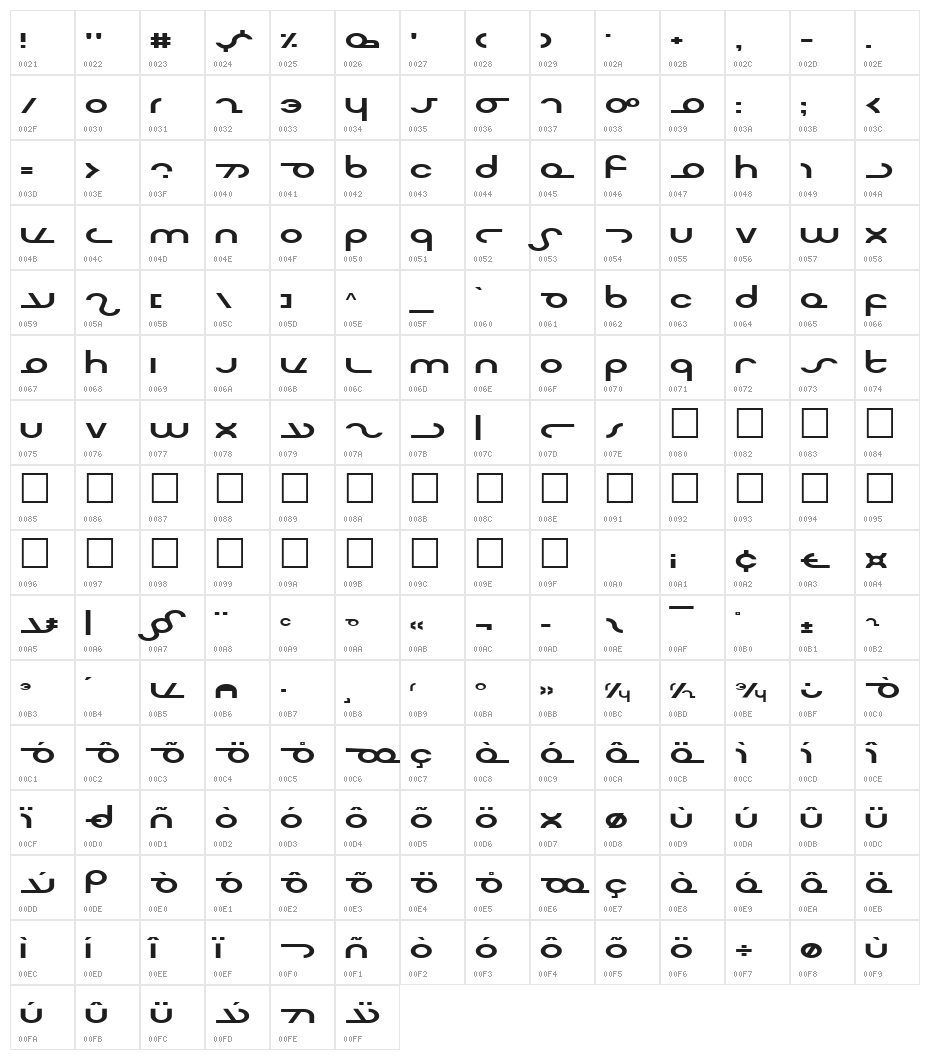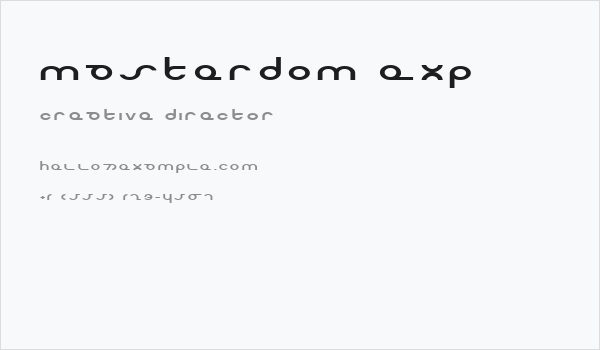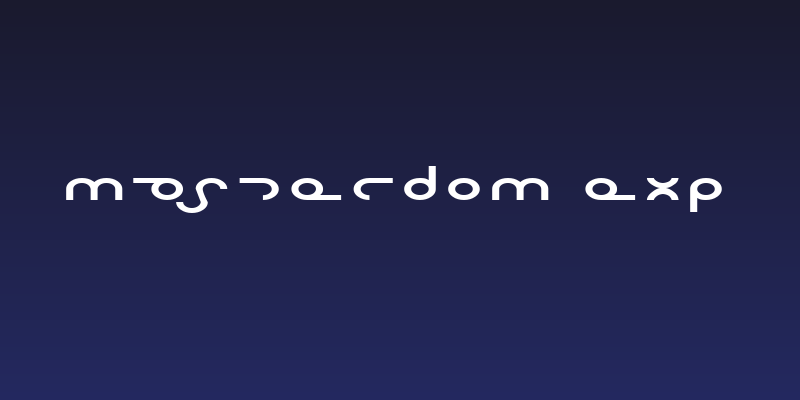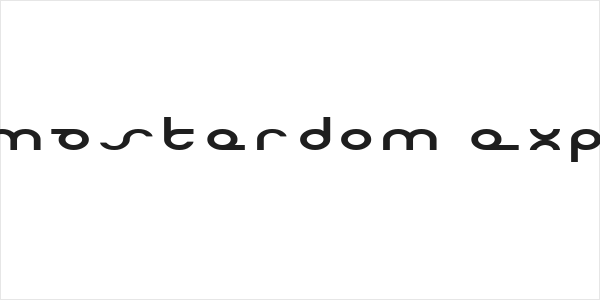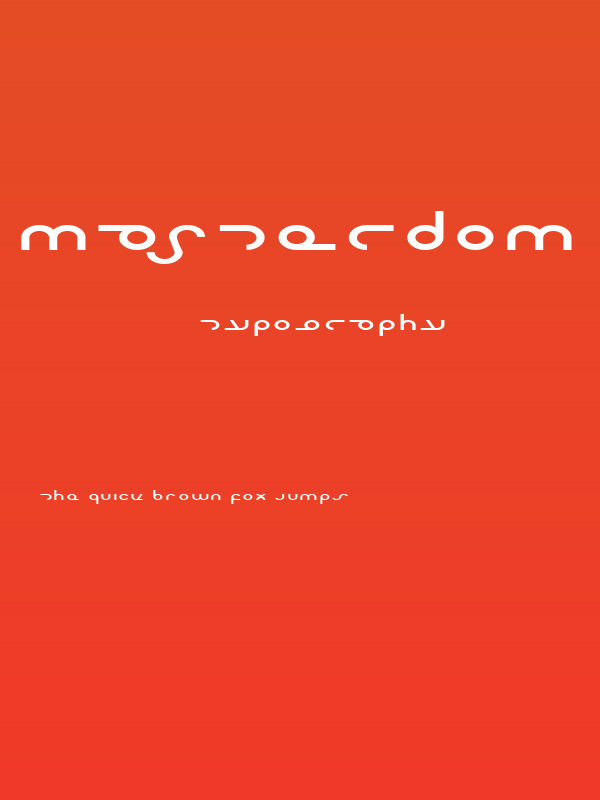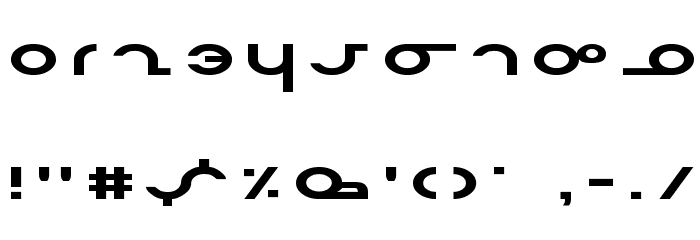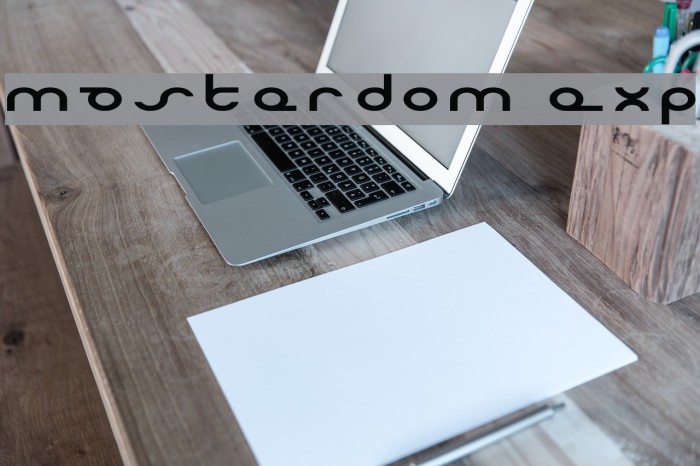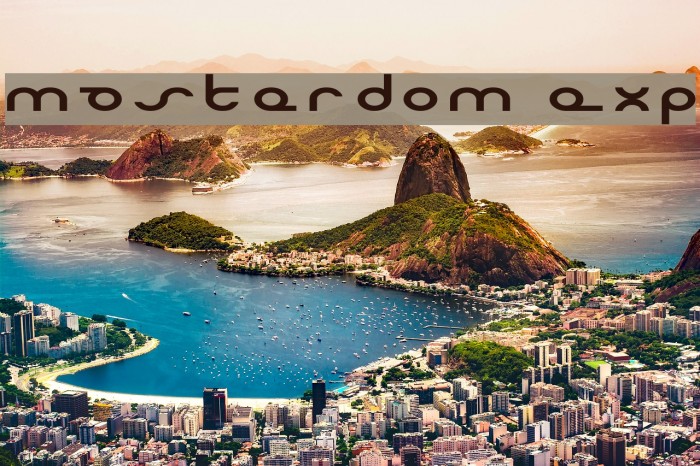
Masterdom Exp Font
Masterdom Exp Description
This font features a unique and futuristic design with a distinct geometric style. The characters are crafted with a combination of straight lines and smooth curves, giving it a modern and innovative appearance. The uppercase and lowercase letters maintain a consistent style, with some characters exhibiting unconventional shapes that add to its distinctiveness. The numerals and special characters follow the same design principles, ensuring uniformity across the font. Its bold strokes and minimalistic approach make it suitable for projects that require a contemporary and eye-catching typeface.
| Use Case | Logos, Headlines, Posters |
| Proposed Projects | Ideal for technology branding, sci-fi themed designs, modern logos, and innovative product packaging. |